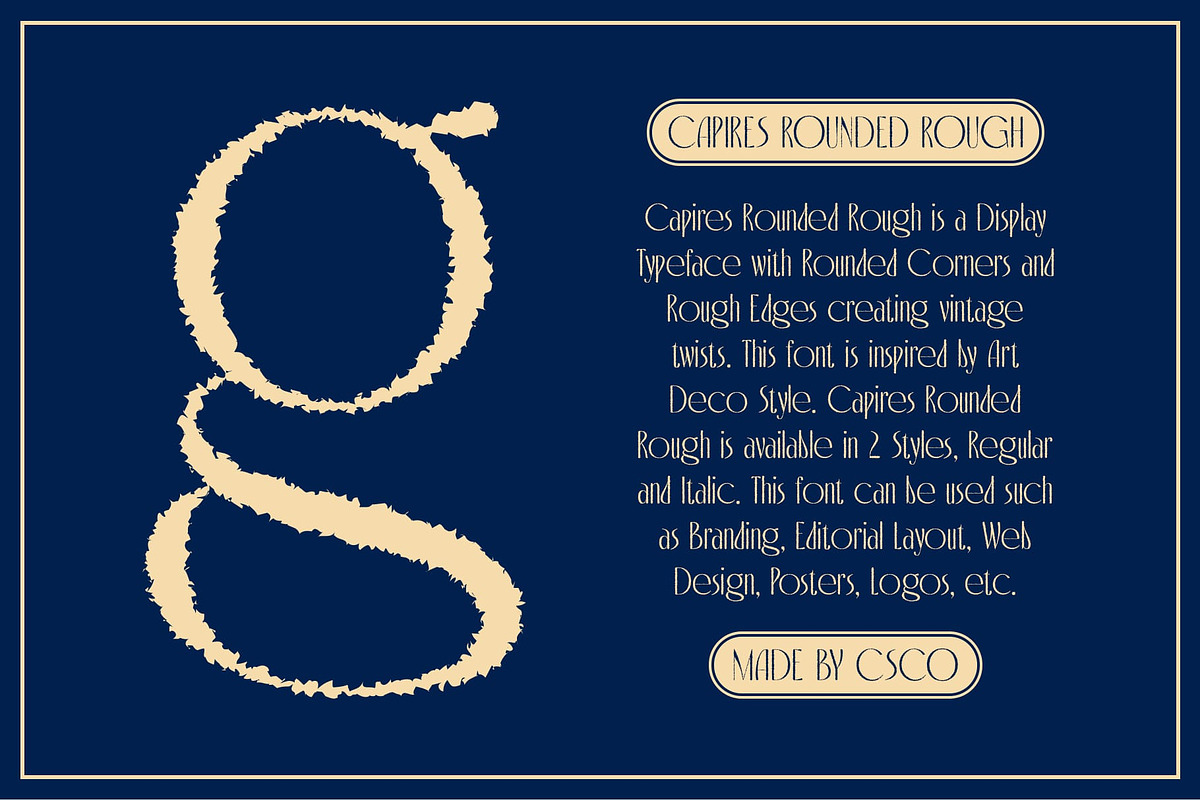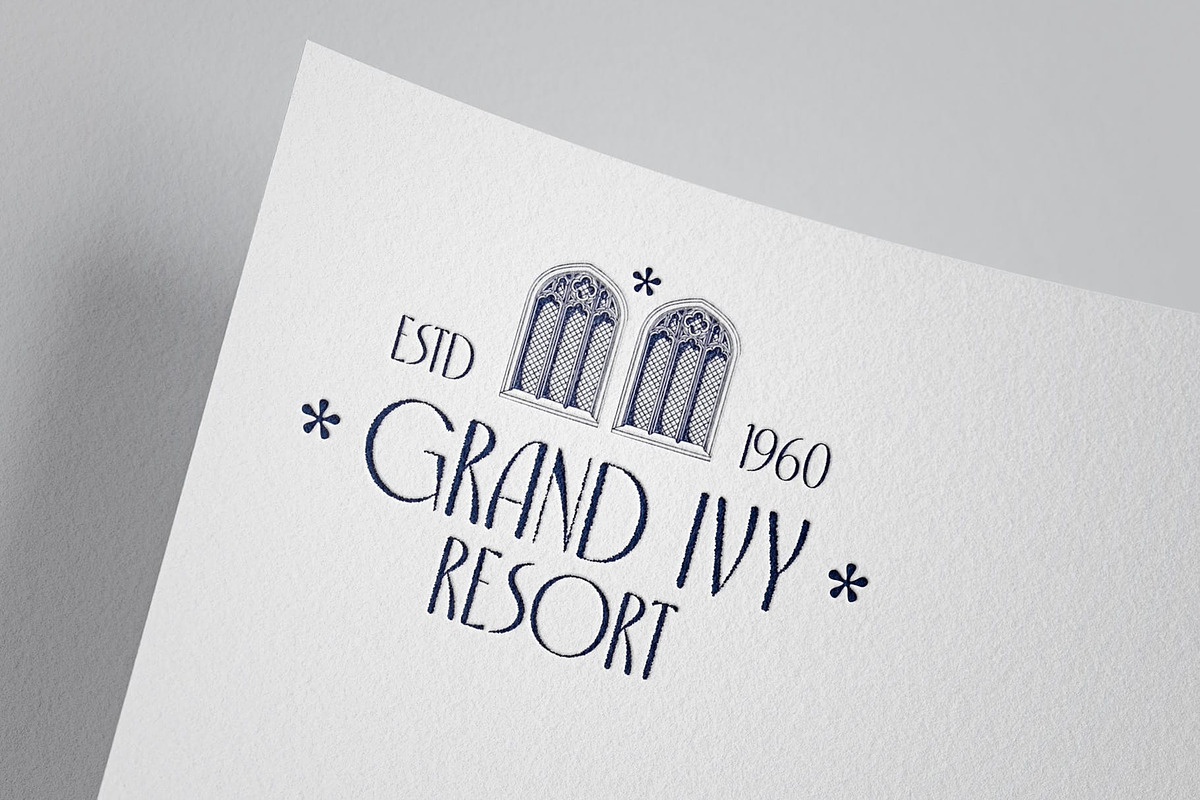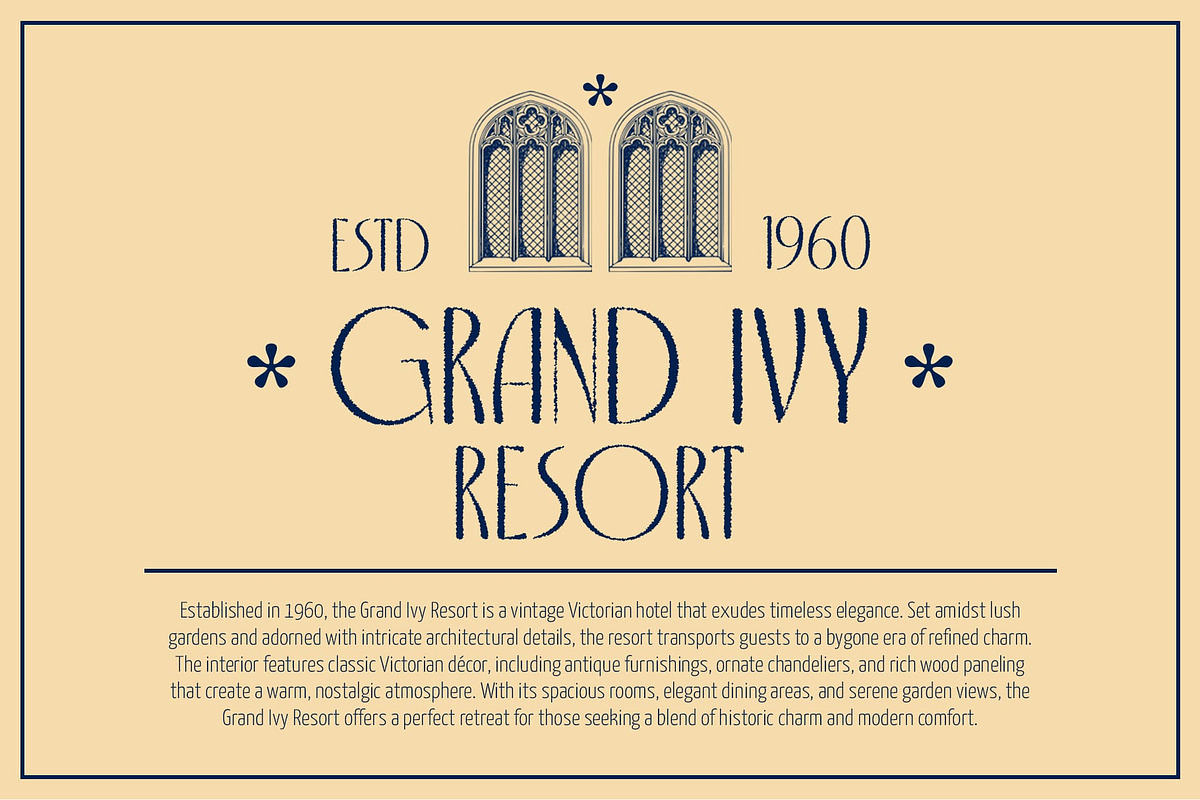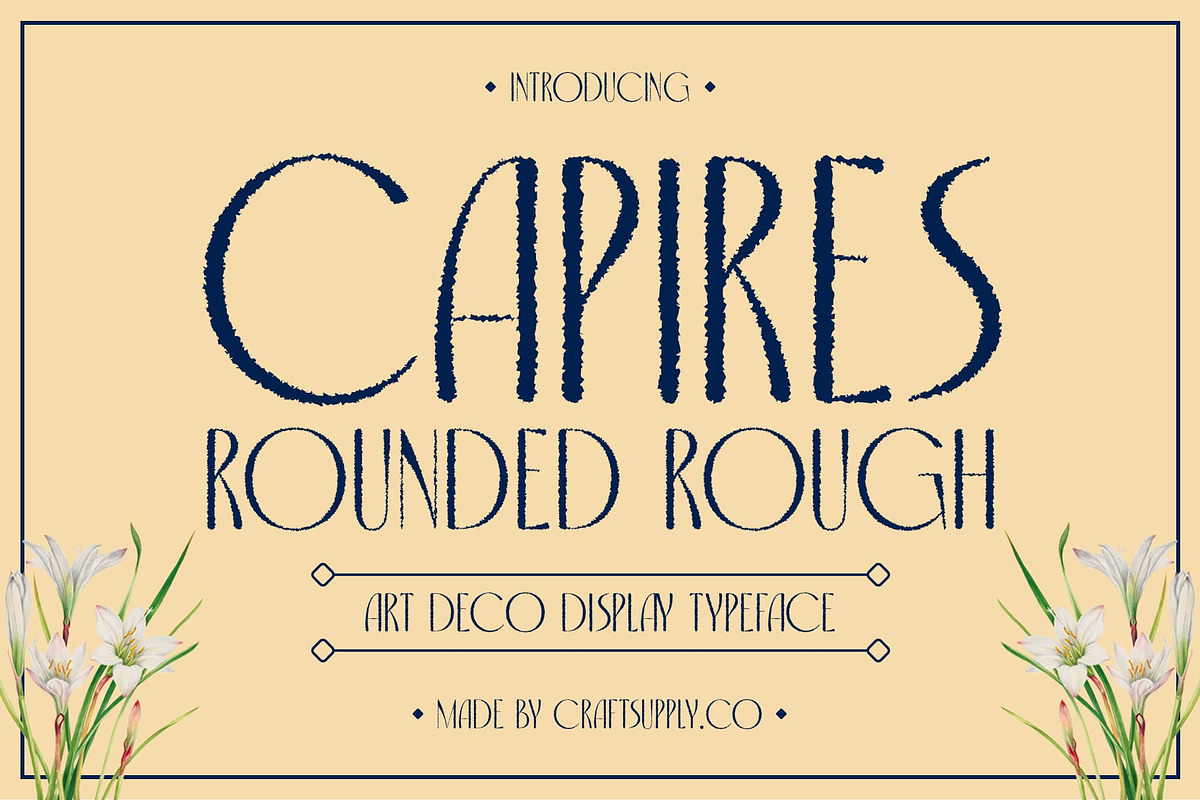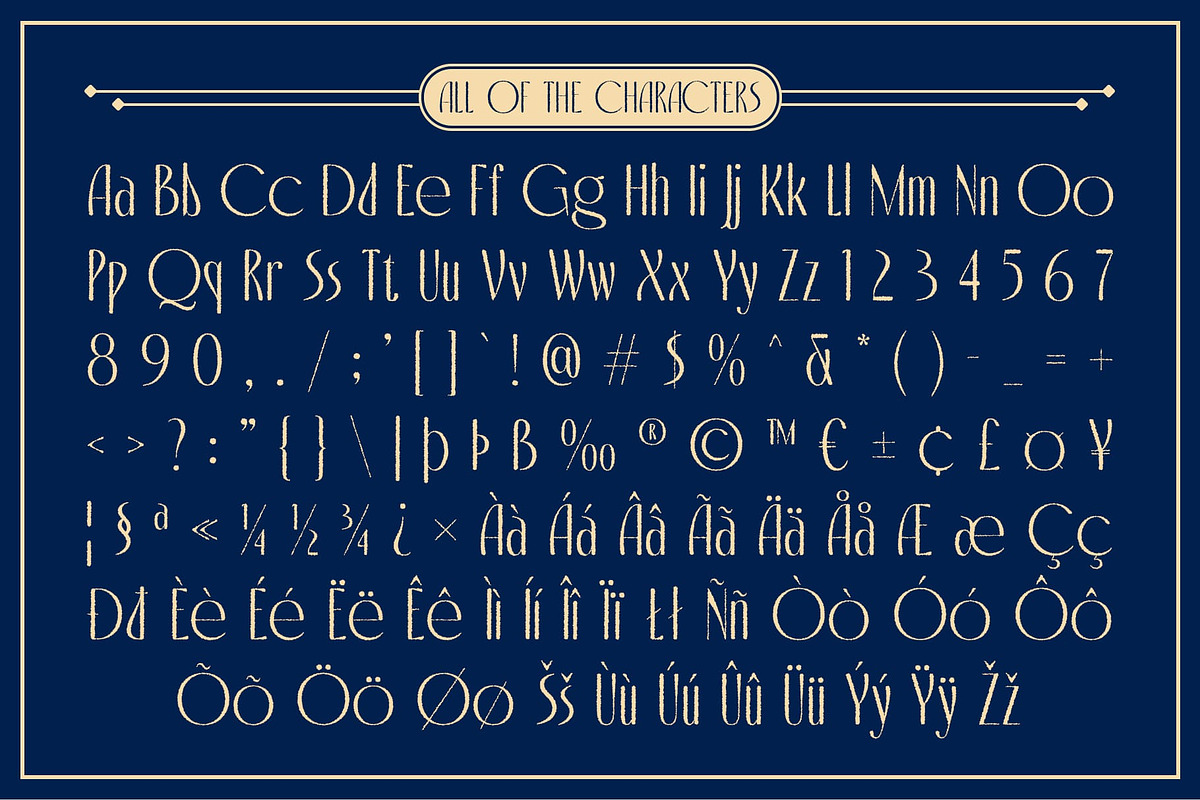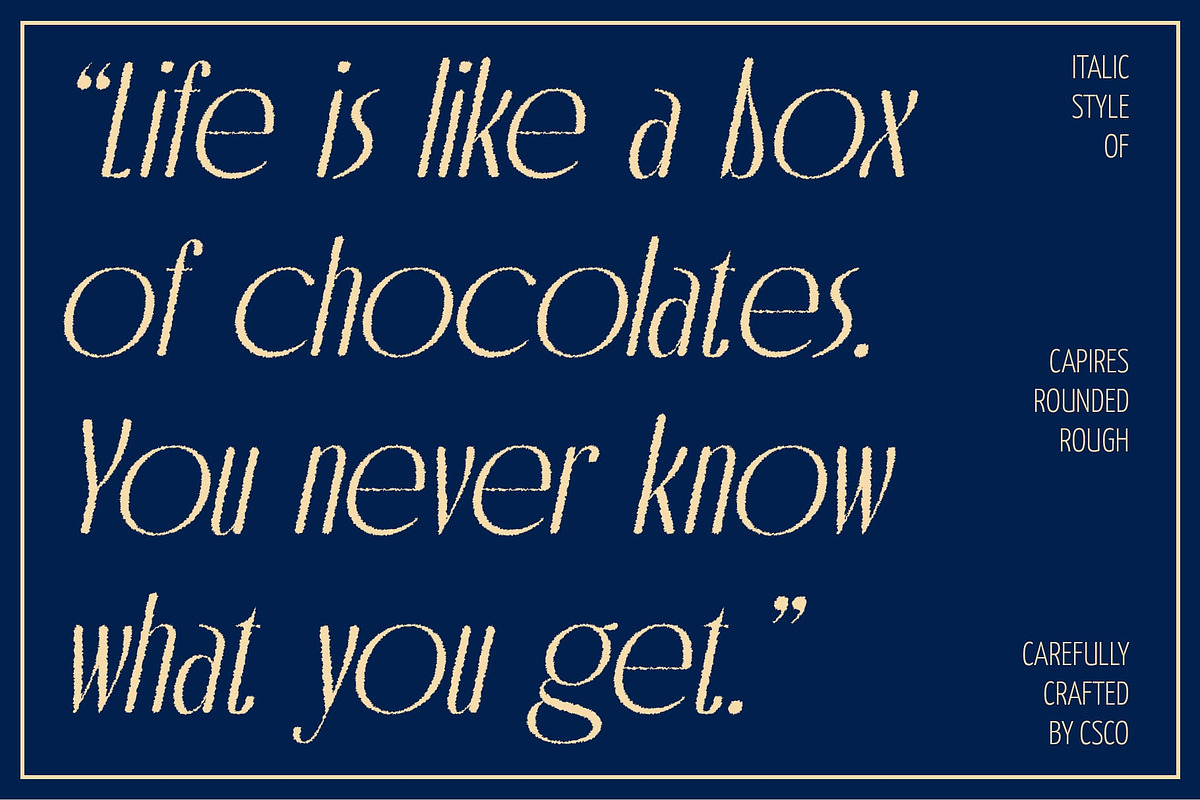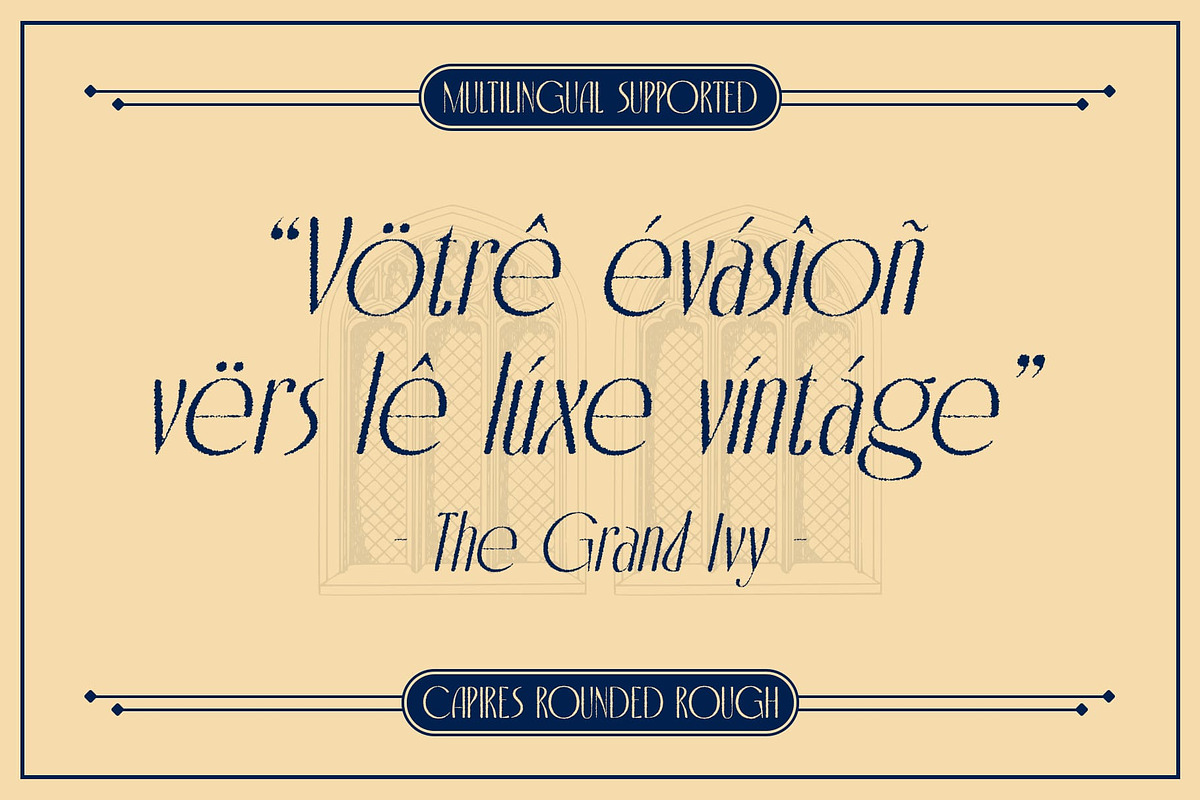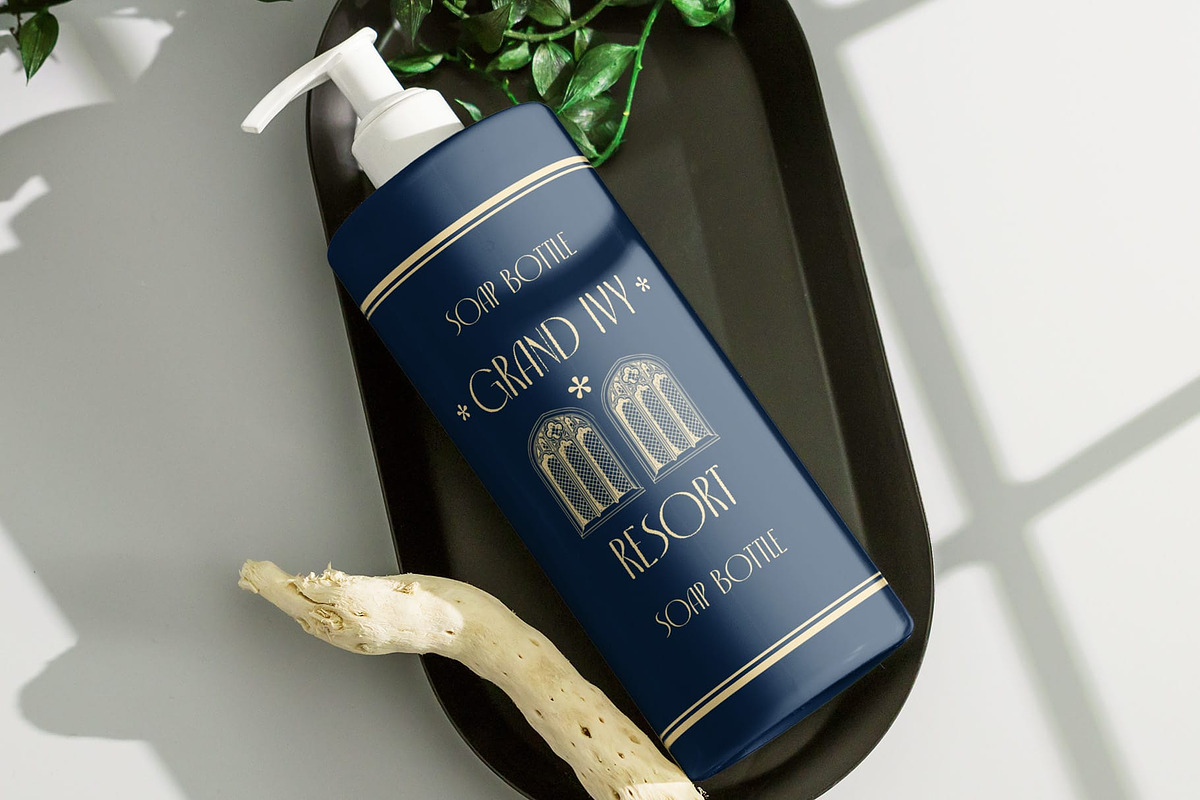
Capires Rounded Rough
Capires Rounded Rough Font: Urban Elegance Meets Vintage Glamour
Modern Sans-Serif with Art Deco Influence Capires Rounded Rough is a modern sans-serif font that blends the clean, geometric elegance of Art Deco with a rough, distressed texture, creating a bold yet approachable style. The sleek, straight lines typical of Art Deco are softened by rounded edges, adding a sense of warmth and friendliness. The rough texture gives this font an edgy, urban vibe while still retaining its sophisticated design roots. This makes it perfect for projects that seek a blend of vintage glamour and contemporary attitude.
Rough Texture for an Edgy, Urban Appeal The rough, distressed effect adds character and a slightly rugged feel to the clean lines of the Art Deco design. This fusion of sharp, elegant shapes with an imperfect, gritty texture creates a striking contrast, making the font stand out in both traditional and modern contexts. It’s ideal for designs that want to capture a bold, confident look with a touch of nostalgia, offering an intriguing balance between refinement and edge.
Versatile for Bold, Refined Designs This rounded rough font is versatile enough for a wide range of applications, from high-impact branding to eye-catching posters and bold editorial layouts. The combination of rounded, approachable forms and rough texture makes it equally at home in creative projects that evoke vintage style or contemporary urban environments.
- Capires Rounded Rough Regular
- Capires Rounded Rough Italic